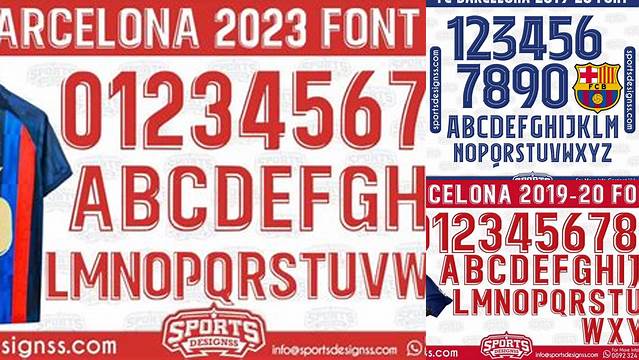
Understanding the Barcelona Font
Before we jump into the download details, let's take a closer look at what makes the Barcelona Font so special. Understanding its origins and design elements will help you appreciate its unique character and use it effectively in your projects. So, what exactly is the Barcelona Font, and why is it so sought after?
The Barcelona Font, often associated with the FC Barcelona football club, is more than just a typeface; it's a symbol of the club's identity and its rich history. The font is used in official merchandise, jerseys, and other branding materials, making it instantly recognizable to fans worldwide. Its distinct style embodies the spirit of Barcelona – bold, modern, and full of character. The Barcelona Font is not just a typeface; it's a visual representation of a globally recognized brand. It carries the weight of history, tradition, and the passion of millions of fans worldwide. Understanding its significance is the first step in appreciating its value. The design of the Barcelona Font reflects the city's architectural landscape, blending modern aesthetics with historical influences. It’s a font that speaks volumes, conveying a sense of dynamism and elegance. When you choose to use this font, you're not just picking a typeface; you're aligning yourself with a powerful brand identity. This font is versatile and can be used in a variety of projects, from sports-related designs to corporate branding. However, it's essential to use it appropriately and respectfully, understanding its origins and the message it carries. The FC Barcelona Font is a trademarked asset, so it's important to be aware of the licensing terms and conditions before using it for commercial purposes. Using the font without permission could lead to legal issues, so always ensure you have the necessary rights. For personal use, the font is generally more accessible, but it's always a good idea to check the specific terms of use provided by the font creator or distributor.
History and Evolution
The history of the Barcelona Font is intertwined with the evolution of the FC Barcelona brand. Over the years, the club's visual identity has undergone several transformations, with the font playing a crucial role in shaping its image. Exploring this history provides context to the font's current design and its significance to the club and its fans. The font has evolved through various iterations, each reflecting the contemporary design trends and the club's branding strategy at the time. Tracing this evolution helps us understand how the font has become what it is today – a symbol of modernity and tradition. The early versions of the Barcelona Font were likely simpler and more traditional, reflecting the design aesthetics of the time. As the club grew and its brand became more global, the font evolved to match its expanding influence and modern image. Each modification and redesign aimed to capture the essence of the club while staying relevant to the current design landscape. This evolution showcases the importance of typography in branding and how it can shape the perception of an organization. The font's journey reflects the club's own journey, from its humble beginnings to its status as a global powerhouse in football. The current design of the Barcelona Font is a result of years of refinement and adaptation, making it a valuable asset for the club. When we delve into the history of a font, we gain insights into the creative decisions that shaped its final form. Understanding the historical context can also inform how we use the font in our own projects, ensuring that we do so in a way that respects its origins and its significance.
Key Design Characteristics
What are the defining features of the Barcelona Font? Is it the bold strokes, the elegant curves, or the overall modern feel? This section will break down the key design elements that make this font so distinctive. Understanding these characteristics will not only help you appreciate the font's aesthetic qualities but also guide you in using it effectively in your design projects. The Barcelona Font is characterized by its strong, clean lines and contemporary aesthetic. It’s designed to be both legible and visually striking, making it suitable for a wide range of applications. The font's bold strokes convey a sense of power and confidence, while its subtle curves add a touch of elegance. This balance between strength and elegance is one of the key reasons why the font is so appealing. The font's letterforms are carefully crafted to ensure clarity and impact. Each character is designed to work harmoniously with the others, creating a cohesive and visually pleasing text. The overall design reflects the modern spirit of Barcelona, blending innovation with tradition. When you look closely at the Barcelona Font, you'll notice the attention to detail in every glyph. The spacing between letters, the weight of the strokes, and the overall proportions are all carefully considered to create a balanced and harmonious typeface. This attention to detail is what sets professional fonts apart and makes them so effective in branding and design. The font also incorporates elements that reflect the city's architectural heritage, drawing inspiration from its iconic landmarks and modernist buildings. This connection to the city's culture and history adds another layer of meaning to the font's design. The Barcelona Font's design characteristics make it a versatile choice for a variety of projects. Whether you're designing a sports-related poster, a corporate brochure, or a website header, this font can help you convey a sense of strength, elegance, and modernity.